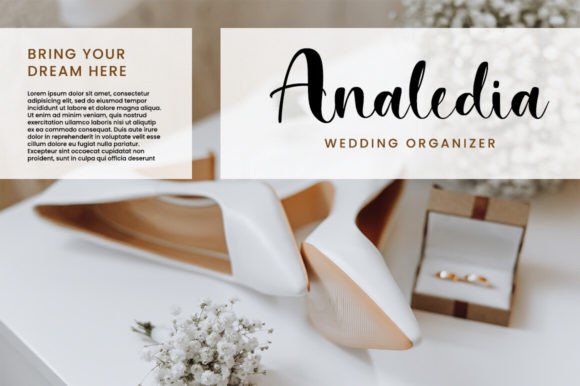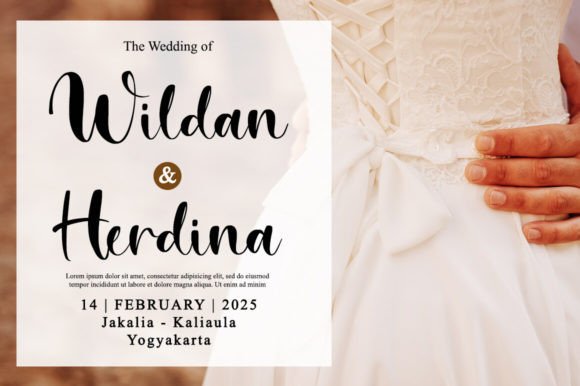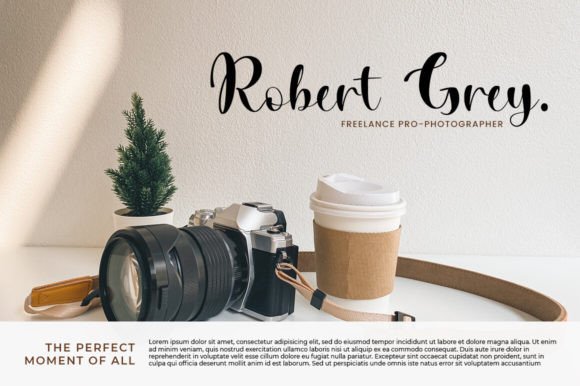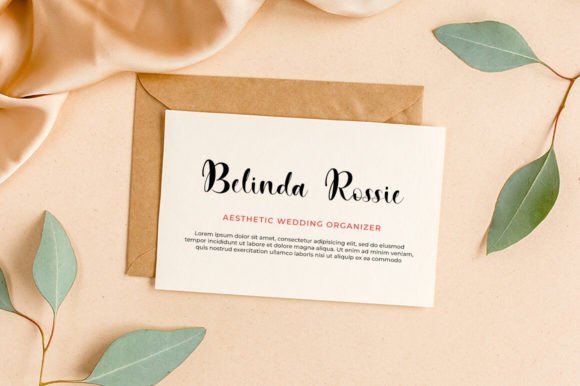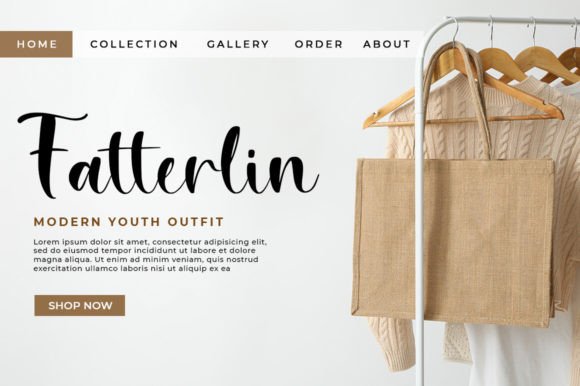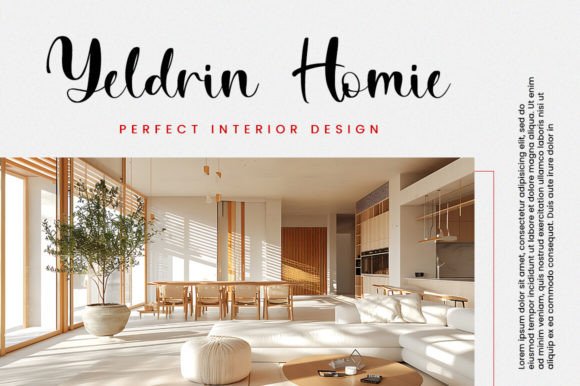
The Perfect Handwritten Touch: Unleashing the Power of the Darellia Font
Have you ever stared at a blank canvas, struggling to bring your creative vision to life? It’s a feeling we’ve all experienced at some point – the blank page staring back at us, daring us to make a move. But what if you had the perfect tool to give your projects that extra oomph? Enter the Darellia Script, a gorgeous typographic font designed to add a touch of elegance and sophistication to any design.
This versatile font is perfect for a wide range of projects, from logos and branding to invitations, stationery, and wedding designs. Its beautiful handwriting style makes it an invaluable asset for designers looking to add a personal touch to their work. Whether you’re creating social media posts, advertisements, or product packaging, the Darellia Font is sure to elevate your designs and leave a lasting impression on your audience.
Darellia Font Key Features
- Font Family: Darellia Font
- Font Style: Script, Casual, Elegant
- Unique Characteristics: Unique swashes, connecting letters, and elegant flourishes, ideal for creative and elegant typography
Darellia Font Review
At first glance, Darellia Font seems like a great choice for any design project. ✨ The font has a modern, sleek feel to it that can work well in a variety of contexts. One of the standout features of Darellia is its versatility – it can be used in both body text and titles with equal ease.
- ✨ High legibility: Darellia is very easy to read, even at smaller font sizes.
- ✨ Versatile: It can be used in a range of contexts, from digital interfaces to print materials.
- ✨ Customizable: Darellia comes in a range of weights and styles, allowing designers to tailor the font to their specific needs.
However, there are a few limitations to consider. ⚠️ One of the main issues is the font’s lack of distinctiveness – it’s a very common, generic font that may not stand out in a crowded design landscape.
- ⚠️ Lack of distinctiveness: Darellia doesn’t have a particularly unique or memorable design aesthetic.
- ⚠️ Limited expressiveness: The font may not be well-suited for projects that require a lot of emotional expression or nuance.
Overall, I’d say that Darellia Font is a solid, middle-of-the-road choice for designers. While it may not blow anyone away with its uniqueness or expressiveness, it’s a reliable, easy-to-use font that can get the job done. If you’re looking for something a bit more exciting or distinctive, you may want to consider other options. But if you need a straightforward, no-frills font, Darellia could be a good choice.
The Darellia Font is ideal for:
- Brand logos and identities
- Custom graphics and illustrations
- Professional presentations and documents
By following these steps and using the Darellia Font in the right contexts, you can create stunning and effective designs.
Alternatives to Darellia Font for Designers
Great Vibes is a beautiful script font perfect for creating elegant and sophisticated designs. It features a mix of elegant and playful characteristics, making it suitable for wedding invitations, event branding, and luxury product packaging.
Compared to Darellia Font, Great Vibes has a more refined and polished look, while Darellia Font has a more casual and handwritten feel.
Alex Brush is a high-quality script font ideal for creating unique and eye-catching designs. It features a mix of modern and vintage characteristics, making it suitable for branding, advertising, and editorial content.
Compared to Darellia Font, Alex Brush has a more elegant and sophisticated look, while Darellia Font has a more playful and casual feel.
Carolyna Pro is a modern and stylish script font perfect for creating bold and eye-catching designs. It features a mix of geometric and organic characteristics, making it suitable for branding, advertising, and packaging design.
Compared to Darellia Font, Carolyna Pro has a more modern and edgy look, while Darellia Font has a more classic and timeless feel.